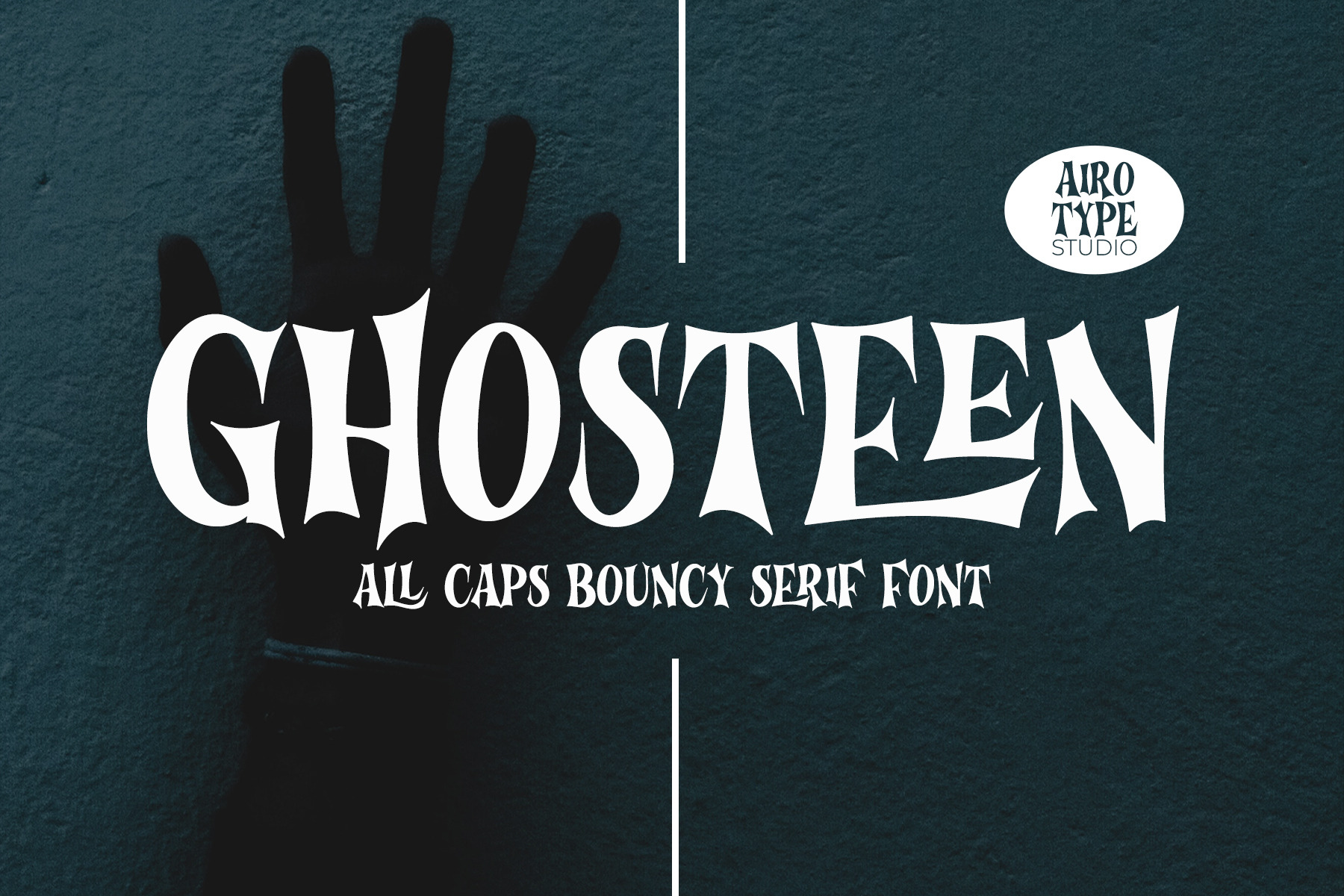
Ghosteen - All Caps Display Font
Ghosteen is bouncy, playful, fun, and spooky modern serif.
Ghosteen is all caps cute serif with uppercase has bigger size than lowercase. It also has some ligatures.
Ghosteen is catchy and fun to be used in playful and spooky design, such as halloween, crafting, t-shirt design, stickers, sublimation, and others.
- All Caps
- Ligatures (EA, EC, ED, EE, EG, EM, EN, EO, ER, ES, ET, ETT, EY, LA, LE, LI, LL, LO, LS, LT, LU, LY, TT)
- Most Multilingual Accent